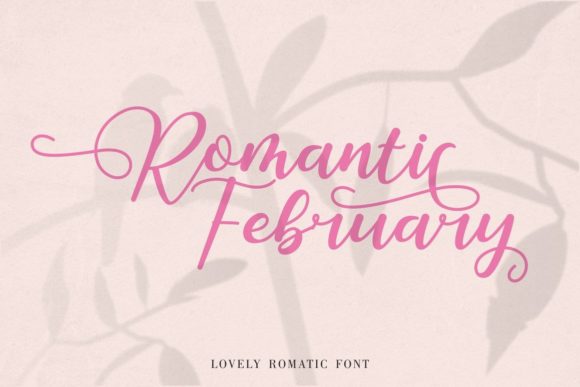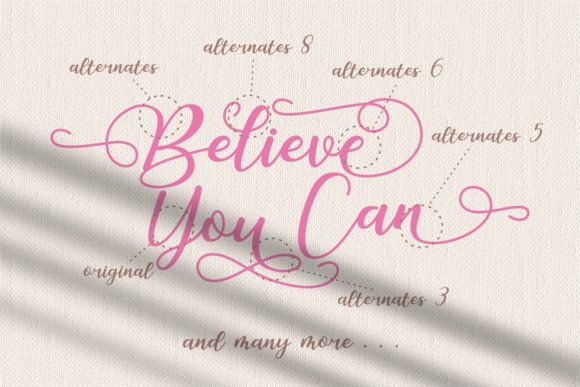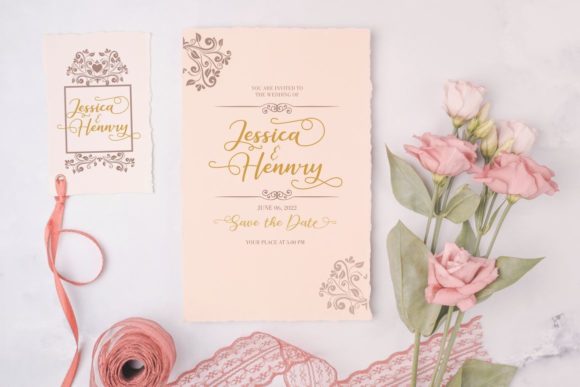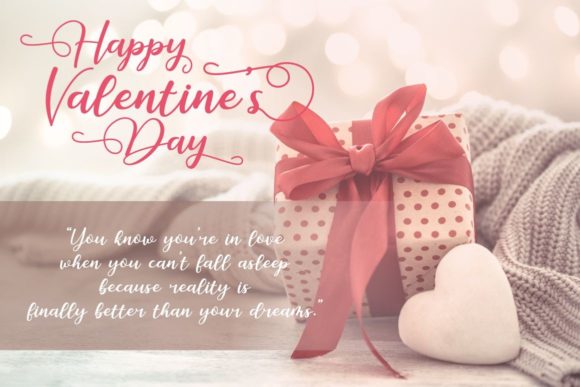
About Romantic February Font
Romantic February is a magical script font carefully created with a touch of elegance. Whether you’re looking for fonts for Instagram or calligraphy scripts for DIY projects, this font will turn any creative idea into a true piece of art! Romantic February is PUA encoded which means you can access all of the glyphs and swashes with ease!